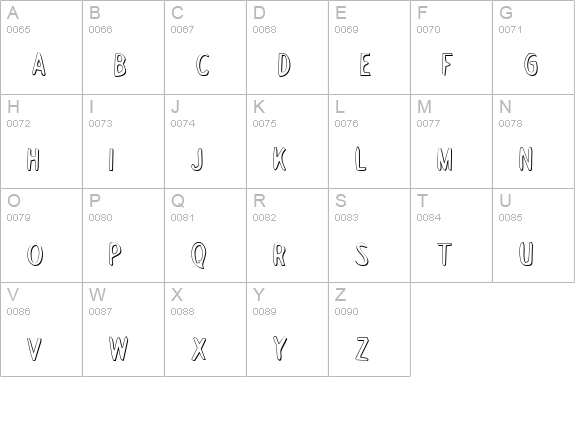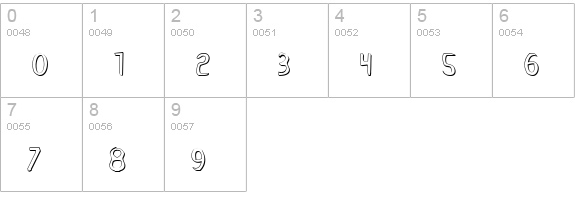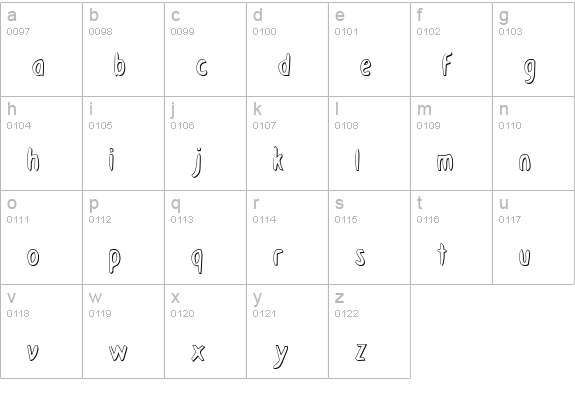
Drafting Table 3D Font Details
Introducing the captivating and versatile Drafting Table 3D font, a unique typeface that effortlessly blends vintage charm with modern sophistication. This meticulously crafted font exudes a sense of creativity and precision, making it the perfect choice for projects that require a touch of artistic flair. The Drafting Table 3D font features stunning three-dimensional lettering that adds depth and dimension to any design. Its clean lines and intricate details make it ideal for a wide range of applications, from branding to editorial design to signage. What's even better is that this exceptional font is available for free download at FontsMarket.com. Whether you're a seasoned designer looking to add a fresh new font to your collection or a beginner exploring the world of typography, Drafting Table 3D font is sure to inspire and elevate your creative projects. Download it today and let your imagination soar with this remarkable typeface.